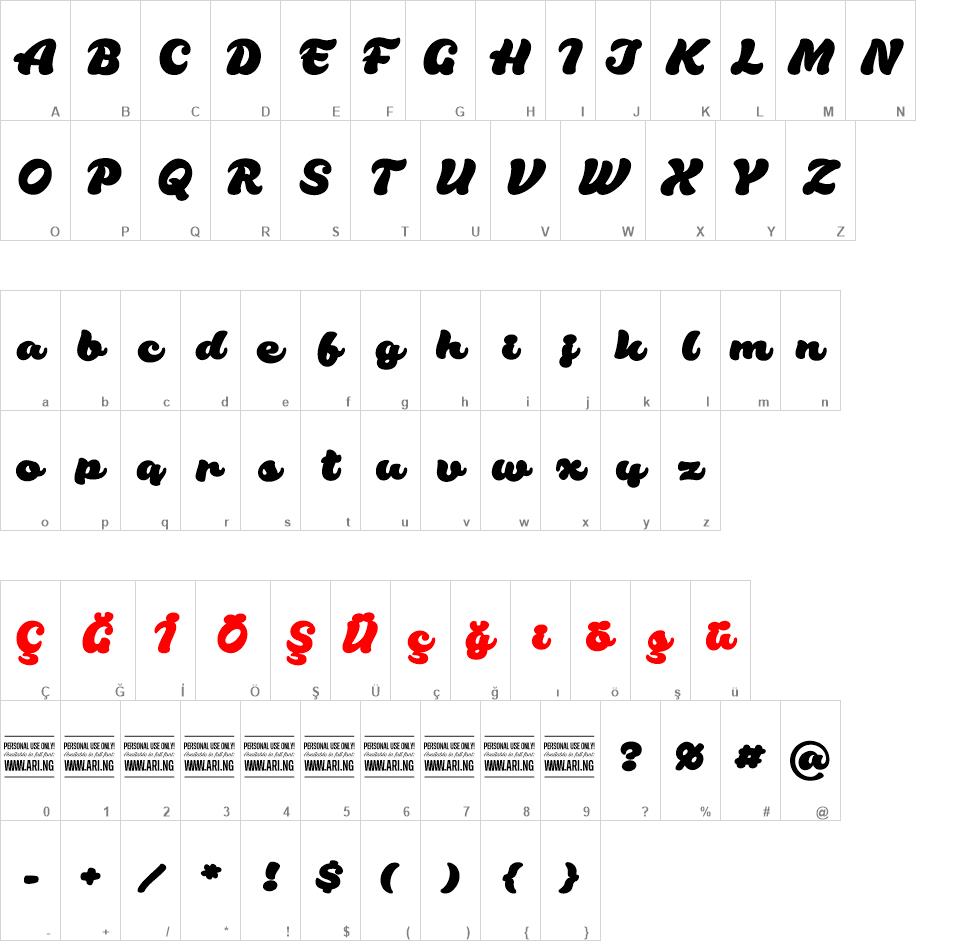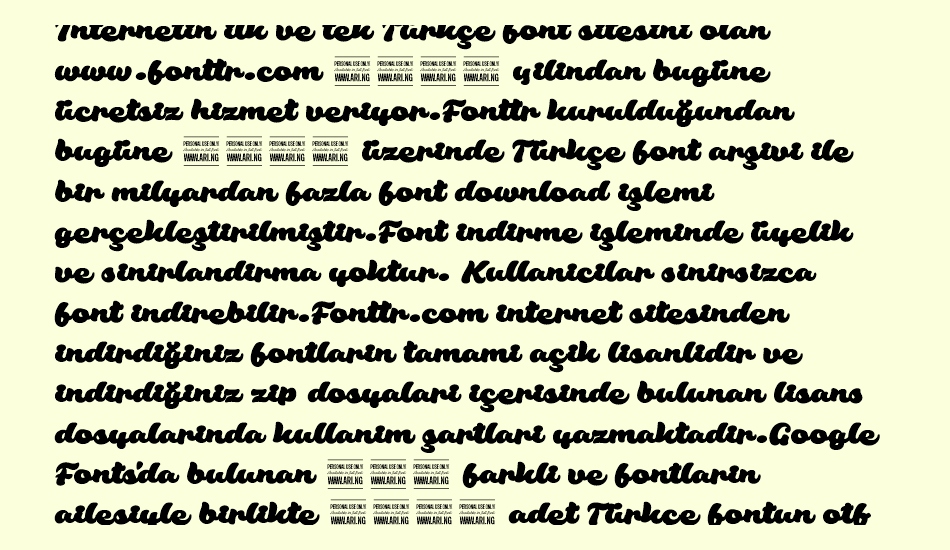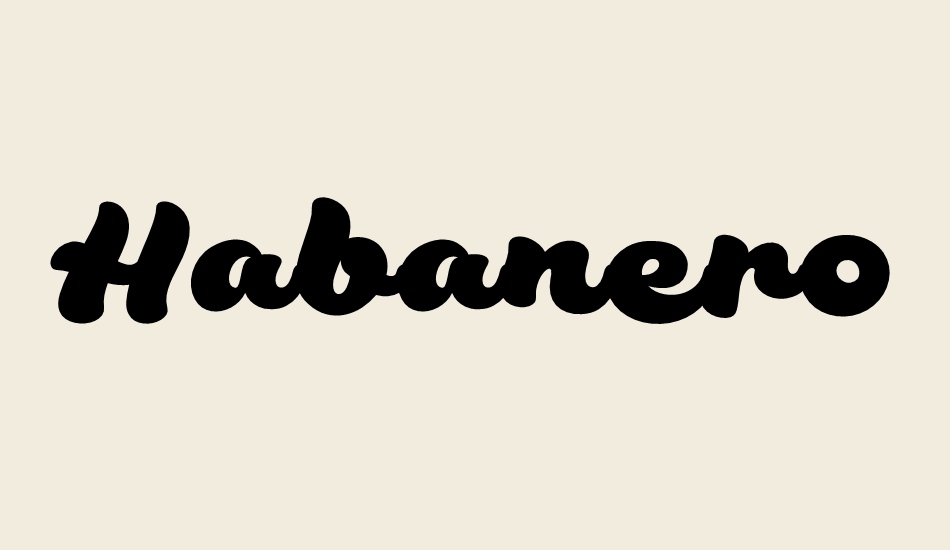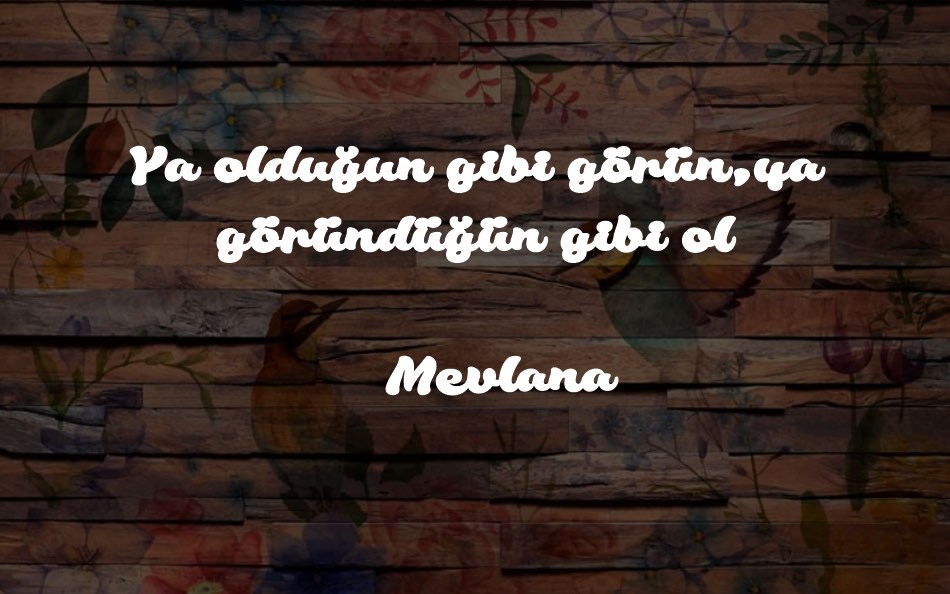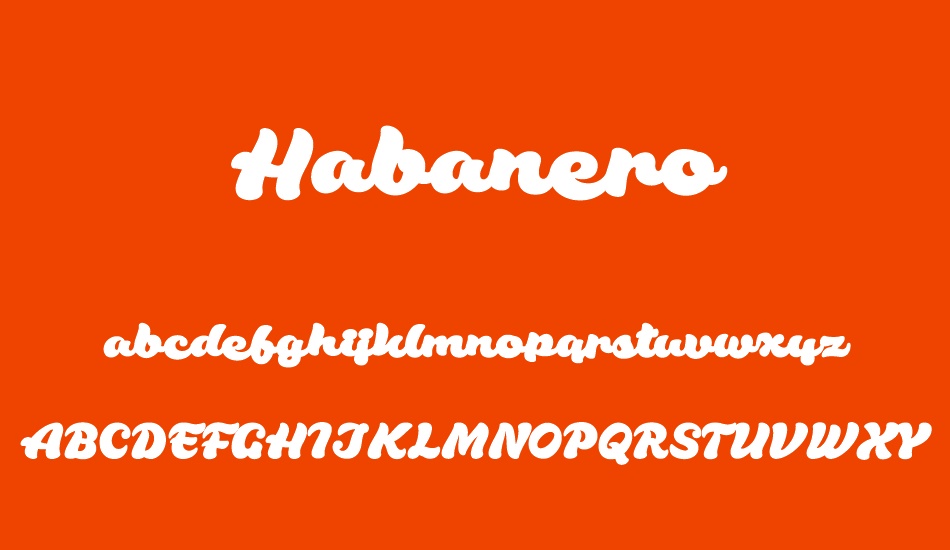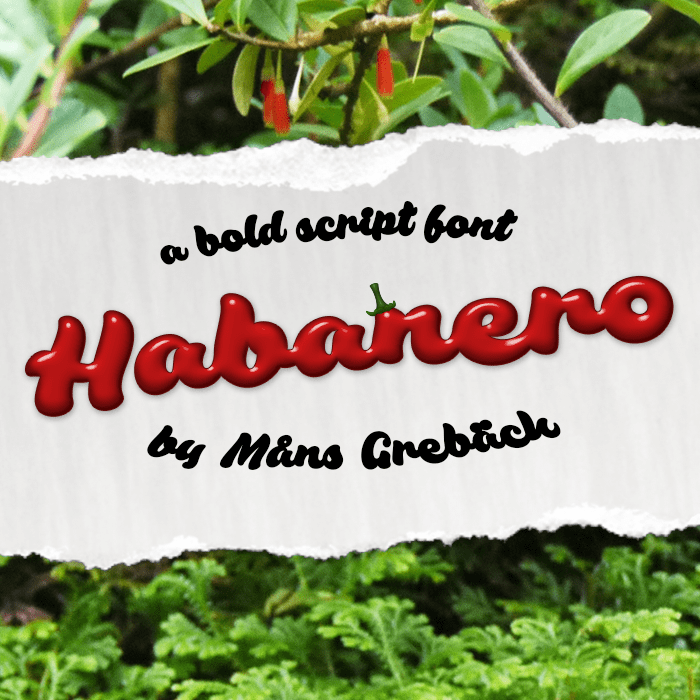
Habanero font
Habanero is a hot, bold and happy typeface.
The font was created by M?ns Greb?ck in 2016, and it contains contextual
alternates and ligatures to make your type stand out.